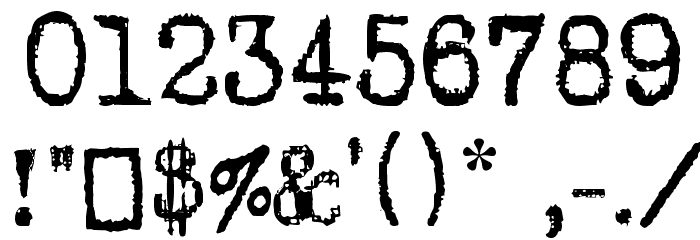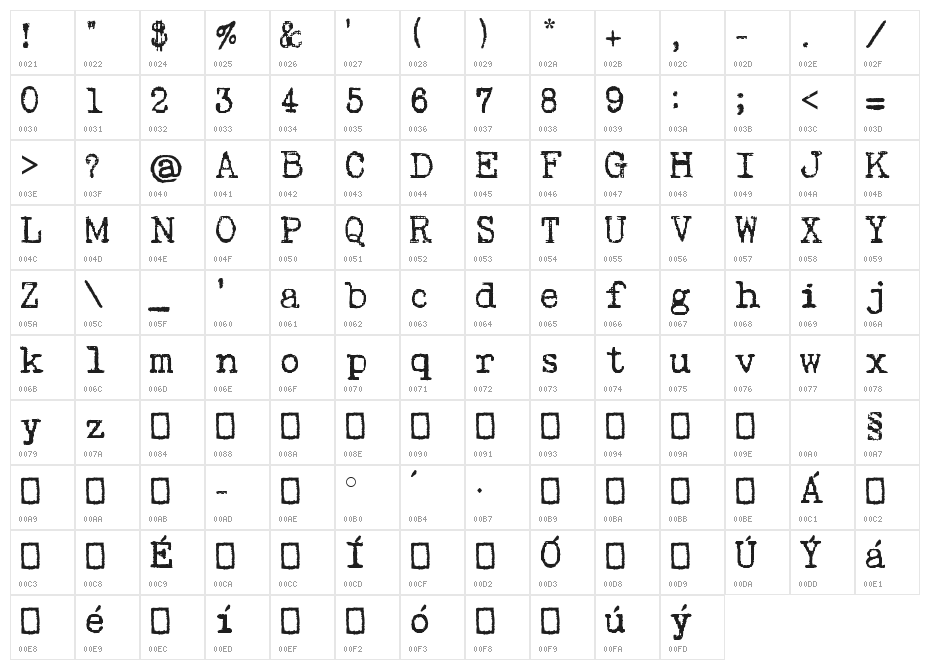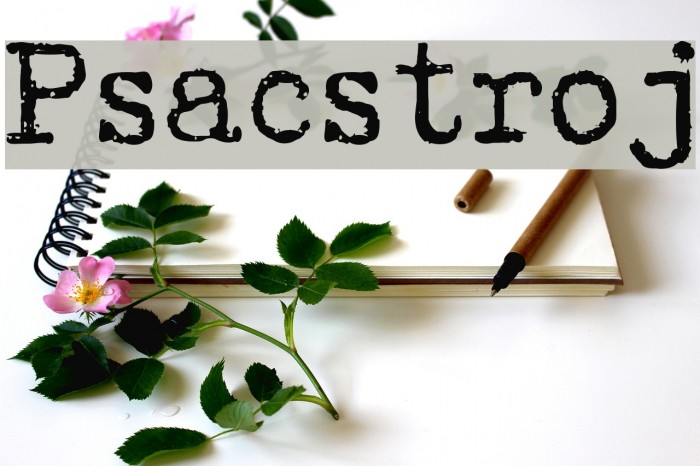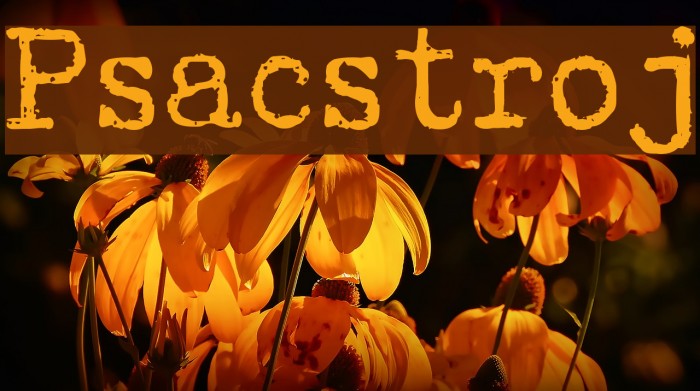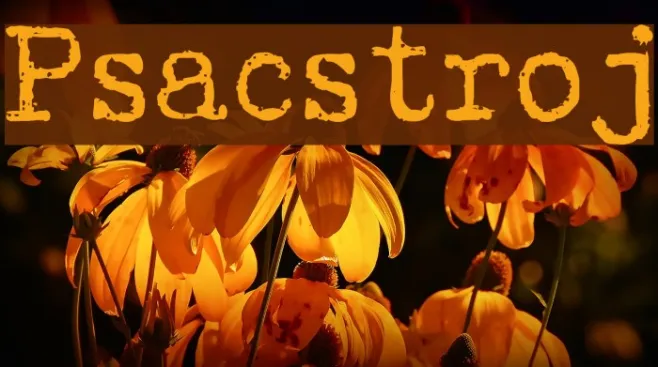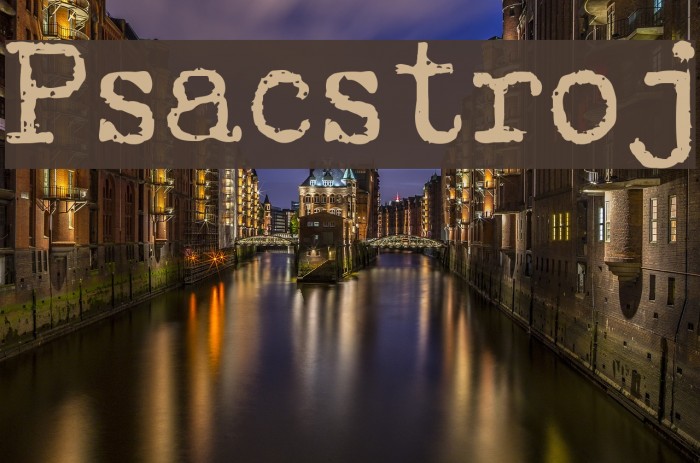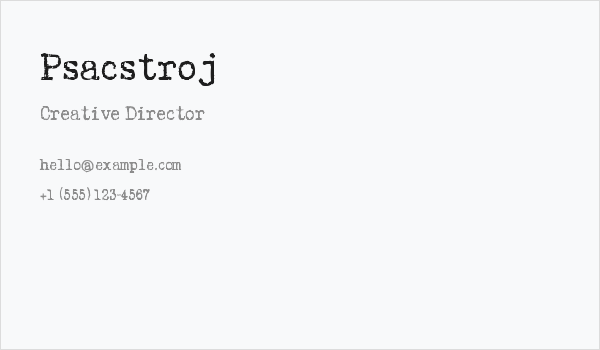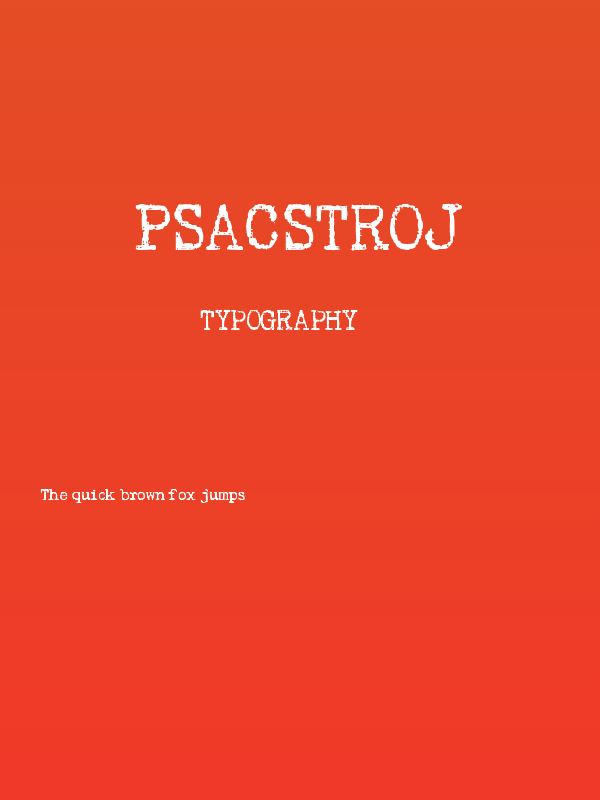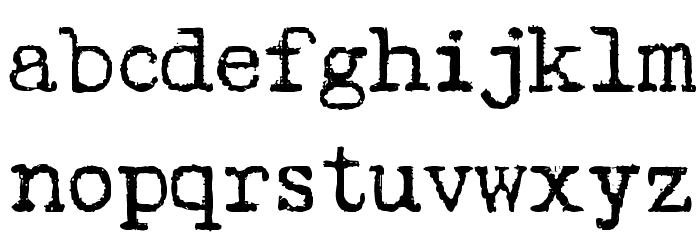
Psacstroj Font
Psacstroj Description
This typeface exudes a rugged, distressed aesthetic, reminiscent of vintage typewriter fonts with a modern twist. Each character is uniquely textured, giving the impression of ink that has been slightly smudged or worn over time. The uppercase and lowercase letters maintain a consistent height, while the numerals and special characters follow the same distressed style, adding to the overall cohesive look. The font's irregular edges and varying stroke thicknesses contribute to its handcrafted appearance, making it ideal for projects that require a touch of authenticity and character.
Overall StyleVintage
Proposed ProjectsIdeal for vintage-themed designs, posters, album covers, and branding that requires a rustic or handcrafted feel.